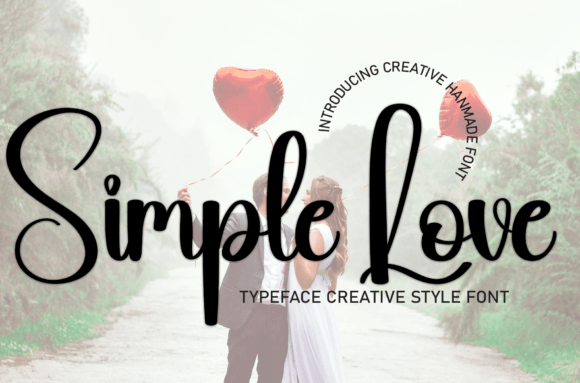
Dive into a world of handwritten charm with Simple Love, a remarkable creation by the talented William Jhordey. Step into a realm where creative dreams take flight, and words dance with a rhythm of their own. Simple Love, a script font brimming with warmth and whimsy, is here to transform your designs into captivating expressions of joy.
From heartfelt wedding invitations that whisper promises of love to playful birthday cards bursting with laughter, Simple Love becomes your perfect companion. Its gentle curves and cheerful strokes add a touch of elegance to branding projects, logos, and website designs. Let your imagination roam free as you explore the infinite possibilities that await.
With Simple Love, user interfaces and user experiences take on a new level of engagement. Its legible and distinctive characters enhance readability, while its playful personality adds a touch of delight to every interaction. Whether you're crafting mobile apps, websites, or digital products, Simple Love ensures a seamless and enjoyable user journey.
Embark on a creative adventure with Simple Love as your trusty guide. Let your designs blossom with its sweet embrace, captivating audiences with its undeniable charm. Transform your projects into unforgettable experiences that resonate with hearts, leaving an everlasting impression that lingers in the minds of all who encounter it.